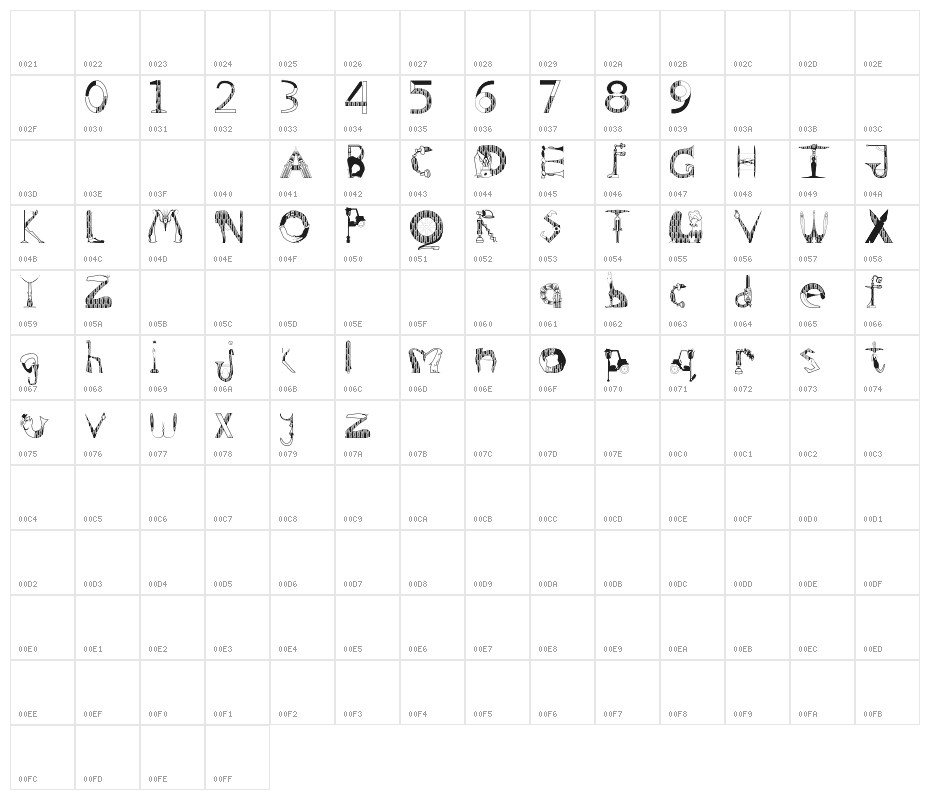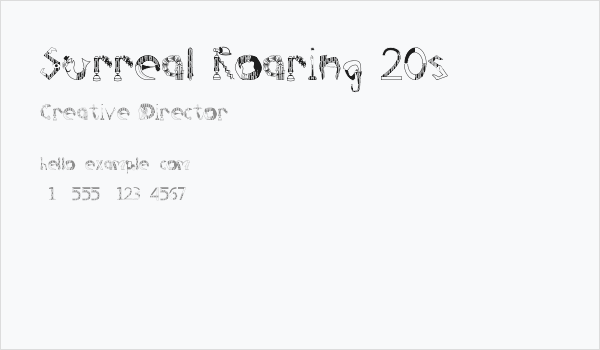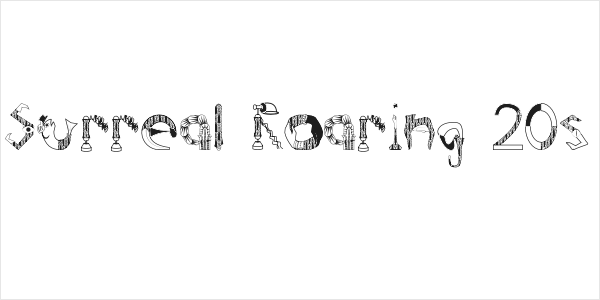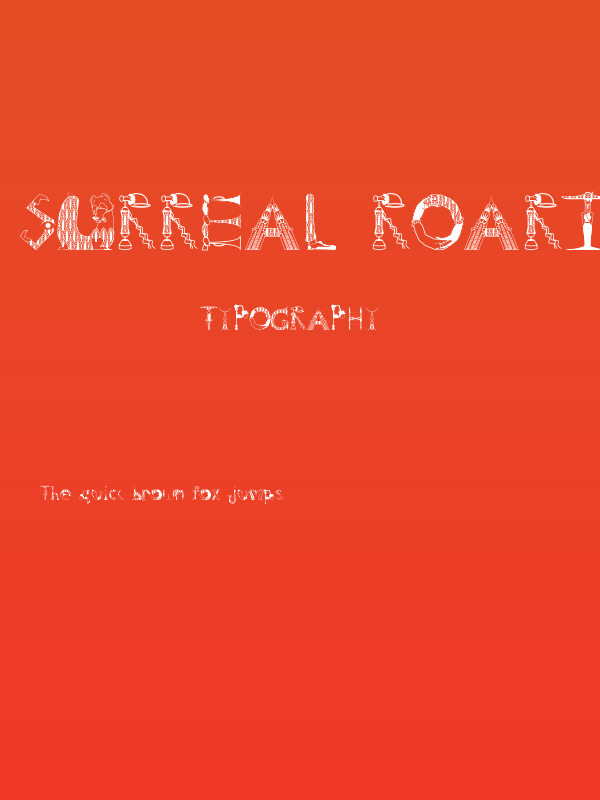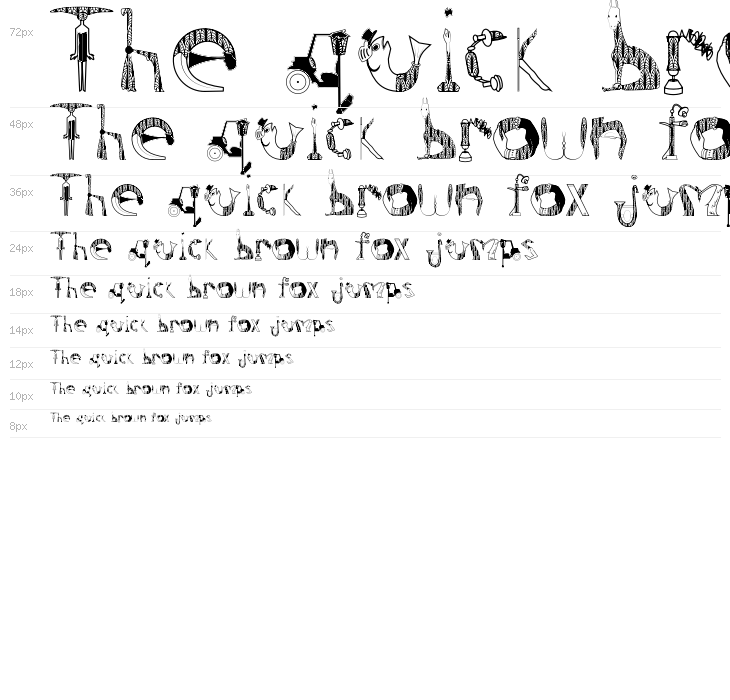
Surreal Roaring 20s Font
Surreal Roaring 20s Description
This font is a highly decorative and artistic representation of the Roaring 20s, capturing the essence of the era with intricate details and unique character designs. Each letter and number is crafted with elements reminiscent of the 1920s, such as Art Deco motifs, jazz influences, and vintage fashion. The uppercase and lowercase letters are distinct, with elaborate patterns and textures that make each character stand out. The numbers follow a similar style, incorporating bold and intricate designs that reflect the opulence and creativity of the time. This font is perfect for projects that aim to evoke a sense of nostalgia and elegance, making it ideal for themed events, posters, and artistic endeavors.
| Use Case | Headlines, Logos, Artistic projects |
| Proposed Projects | Ideal for vintage-themed posters, event invitations, artistic projects, and branding that requires a touch of 1920s elegance. |